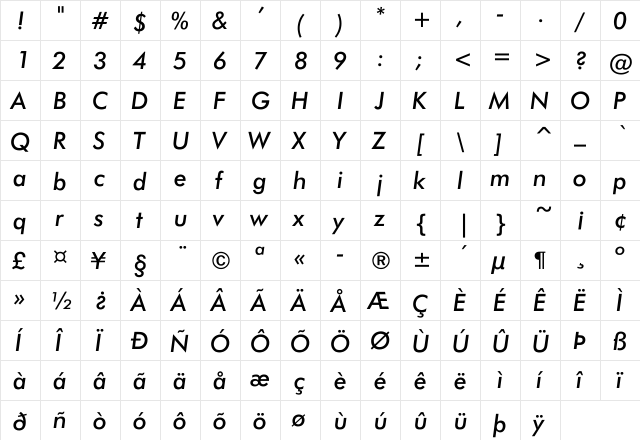
Jensen Italic Regular
Design Context for Jensen Italic Typeface
Jensen Italic is a composed and adaptable typeface that performs quietly and consistently across a wide range of design contexts. Its italic angle brings a sense of urgency and motion to the letterforms.
Pro Tip: Try Jensen Italic for annotation and caption copy alongside an upright companion — the contrast in angle creates a dynamic but ordered typographic system.